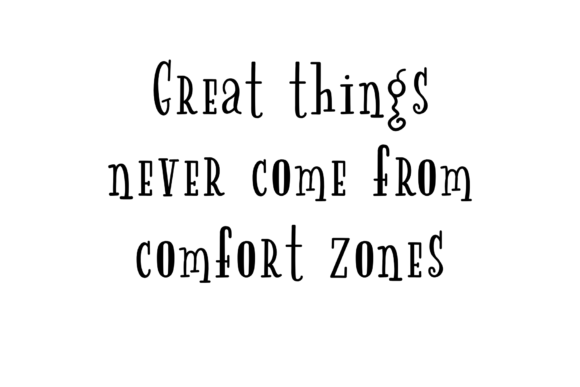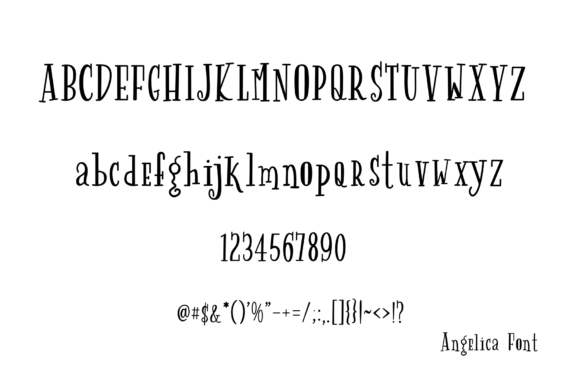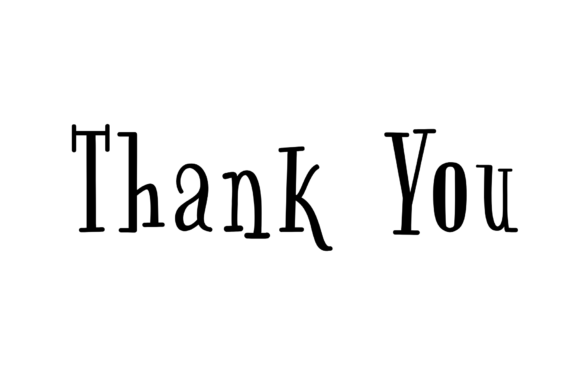
Discover the Whimsical Charm of Angelica Font: Elevate Your Designs with a Touch of Elegance
Are you a designer or crafter looking to add a dash of magic to your personalized creations? Look no further than the enchanting Angelica font. This fairy tale-like serif font is sure to captivate your audience with its elegant and whimsical charm. In this article, we’ll delve into the world of Angelica font, exploring its features, benefits, and uses, as well as provide tips on how to make the most of this beautiful typeface.
What is Angelica Font?
Angelica is a serif font that exudes a sense of sophistication and playfulness. Its unique blend of classic and modern elements makes it an ideal choice for a wide range of design projects, from invitations and greeting cards to branding and packaging. With its delicate lines, intricate details, and charming personality, Angelica font is sure to add a touch of elegance to any design.
Features of Angelica Font
So, what makes Angelica font so special? Here are just a few of its standout features:
- Fairy tale-like charm: Angelica font has a whimsical, storybook quality that makes it perfect for designs that require a touch of magic.
- Sophisticated elegance: Despite its playful nature, Angelica font is also surprisingly elegant, making it suitable for more formal designs.
- Versatility: Angelica font looks lovely on a variety of personalized designs, from paper crafts to digital projects.
- Easy to read: Despite its ornate details, Angelica font is surprisingly easy to read, making it perfect for body text and headlines.
Benefits of Using Angelica Font
So, why should you choose Angelica font for your next design project? Here are just a few benefits:
- Adds a touch of personality: Angelica font is sure to add a dash of personality to your designs, setting them apart from more generic typefaces.
- Evokes emotions: The whimsical, fairy tale-like quality of Angelica font is sure to evoke emotions and create a connection with your audience.
- Enhances creativity: With its unique blend of classic and modern elements, Angelica font is sure to inspire creativity and spark new ideas.
- Perfect for branding: Angelica font’s elegant, sophisticated quality makes it an excellent choice for branding and packaging projects.
Tips for Using Angelica Font
To get the most out of Angelica font, here are a few tips to keep in mind:
- Use it confidently: Don’t be afraid to experiment with Angelica font – it’s a versatile typeface that can be used in a variety of design contexts.
- Pair it with contrasting fonts: To create visual interest, try pairing Angelica font with contrasting fonts, such as a bold sans-serif or a delicate script.
- Experiment with colors: Angelica font looks lovely in a range of colors, from soft pastels to rich jewel tones – don’t be afraid to experiment and find the perfect hue for your design.
- Pay attention to spacing: As with any font, make sure to pay attention to spacing and kerning to ensure that your text is easy to read and visually appealing.
| Font Name | Angelica Font |
| Author | Aommy Design |
In conclusion, Angelica font is a beautiful, whimsical typeface that’s sure to add a touch of magic to your designs. With its elegant, sophisticated quality and versatile nature, it’s an excellent choice for a wide range of design projects. Whether you’re a designer, crafter, or simply a DIY enthusiast, Angelica font is sure to inspire creativity and spark new ideas. So why not give it a try and see the difference it can make?
So add Angelica font to your design toolkit with confidence, and get ready to create personalized designs that will capture the hearts of your audience. With its charming personality and timeless elegance, Angelica font is sure to become a favorite in your design arsenal.